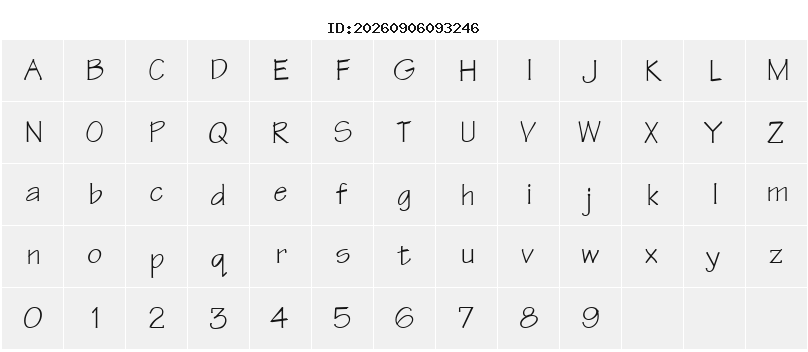
Technical Preview
• Font Name: Technical
• Font ID: (C)opyright 1992 W.S.I. Technical Regular
• Full Font Name: Technical Regular
• Version: (C)opyright 1992 W.S.I. 8/6/92
• PostScript Name: Technical Regular
• Character Count: 235
About Technical.ttf
Technical.ttf is a modern, elegant sans-serif font designed for ultimate readability and visual harmony. Perfect for branding, headlines, web design, and print materials.